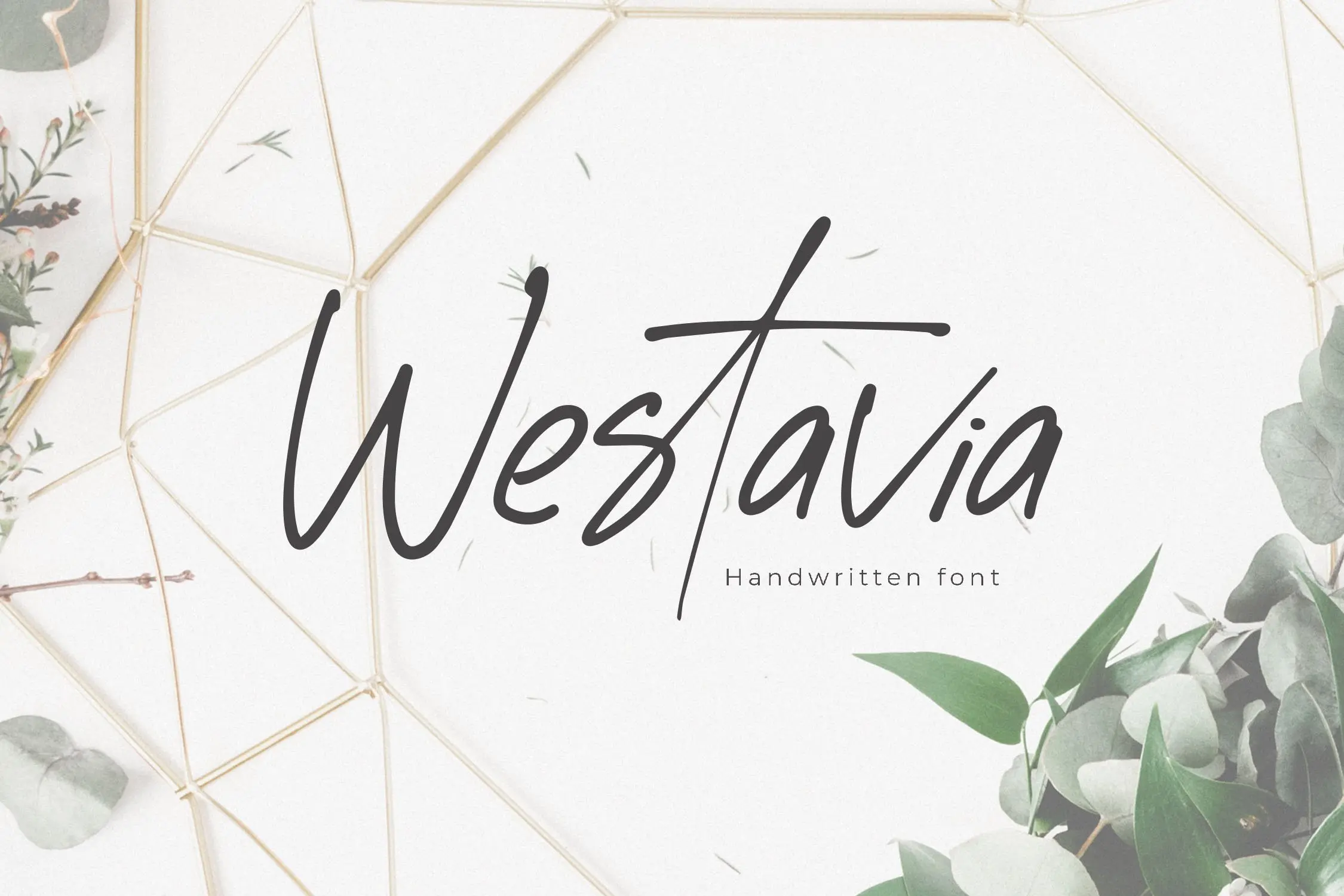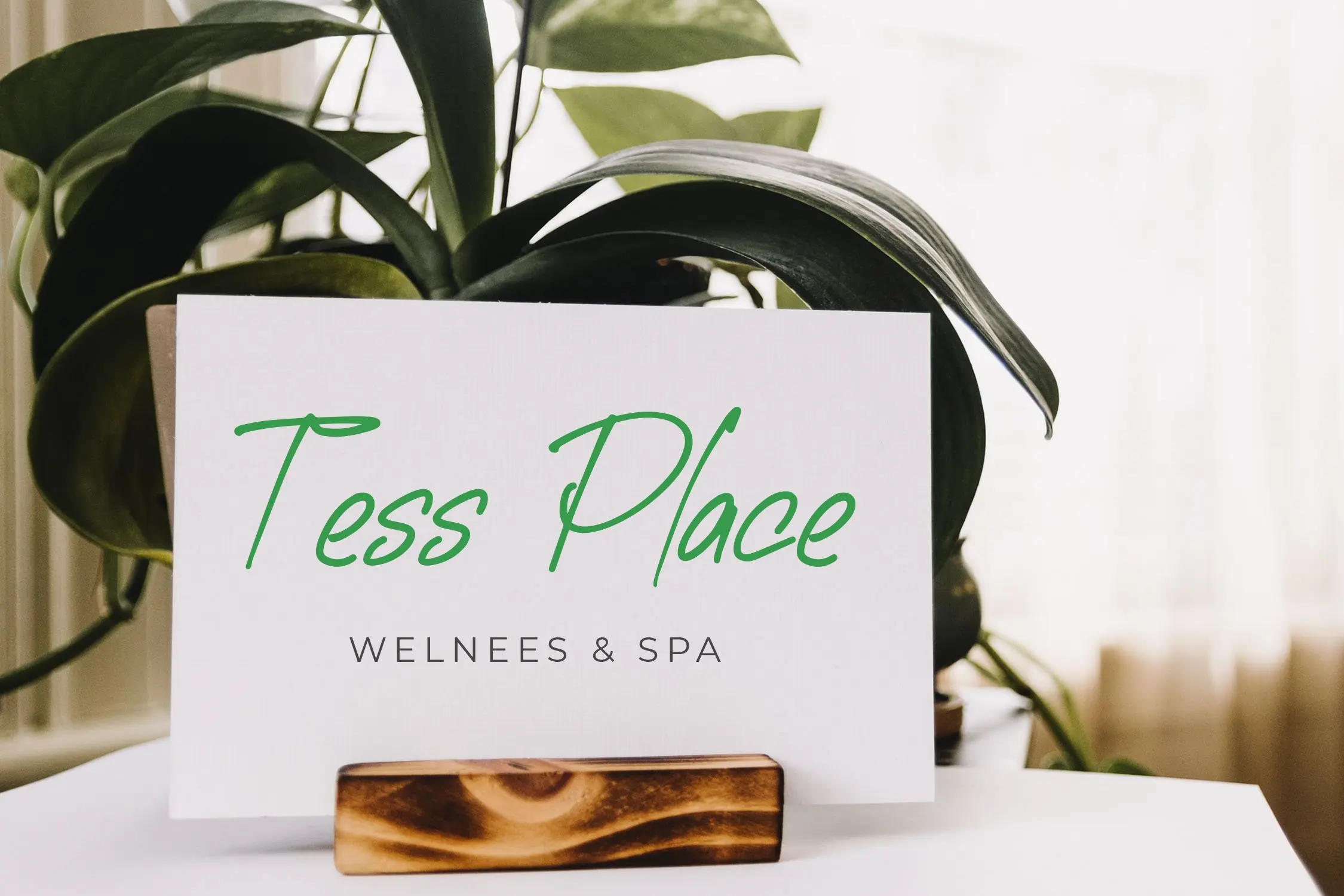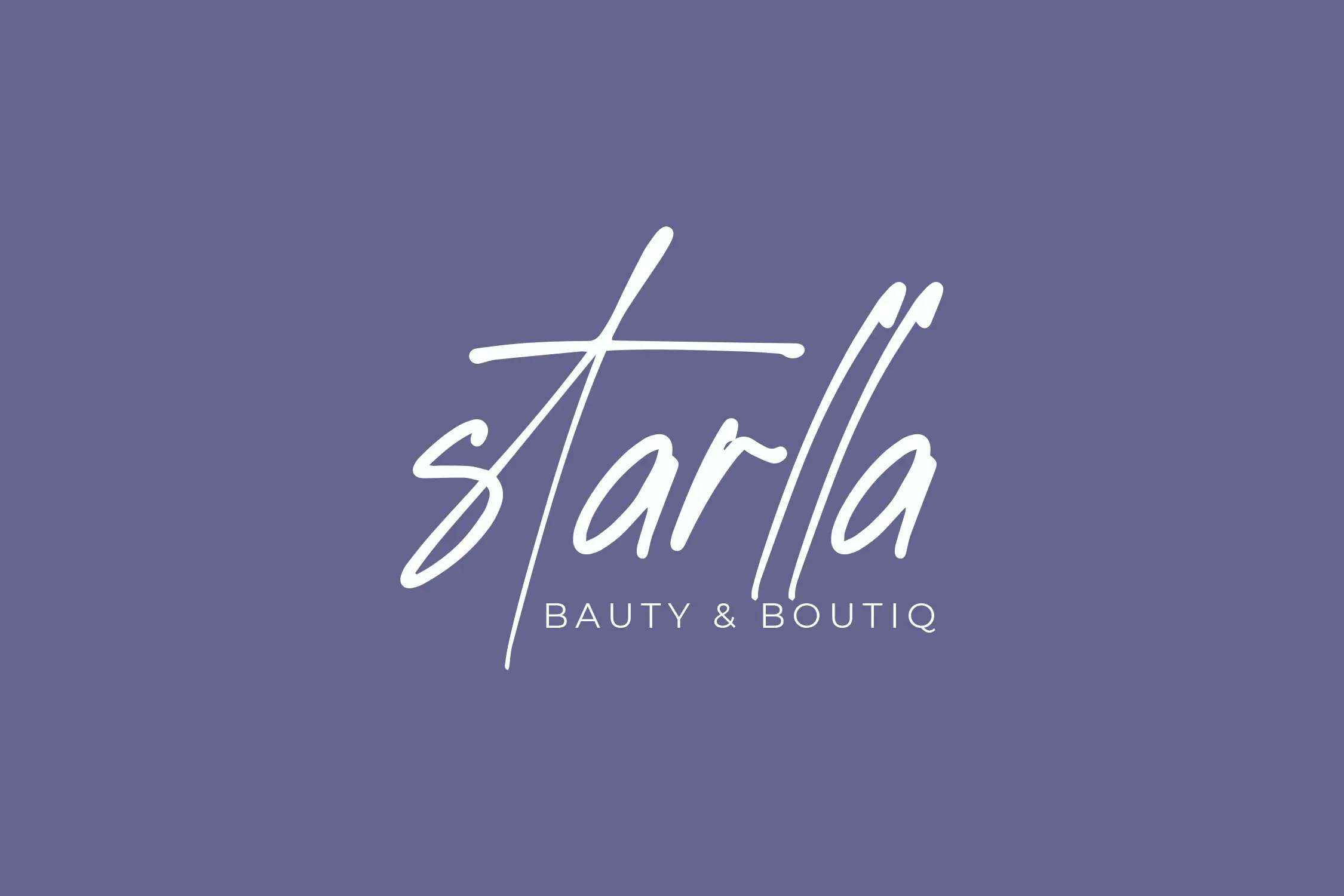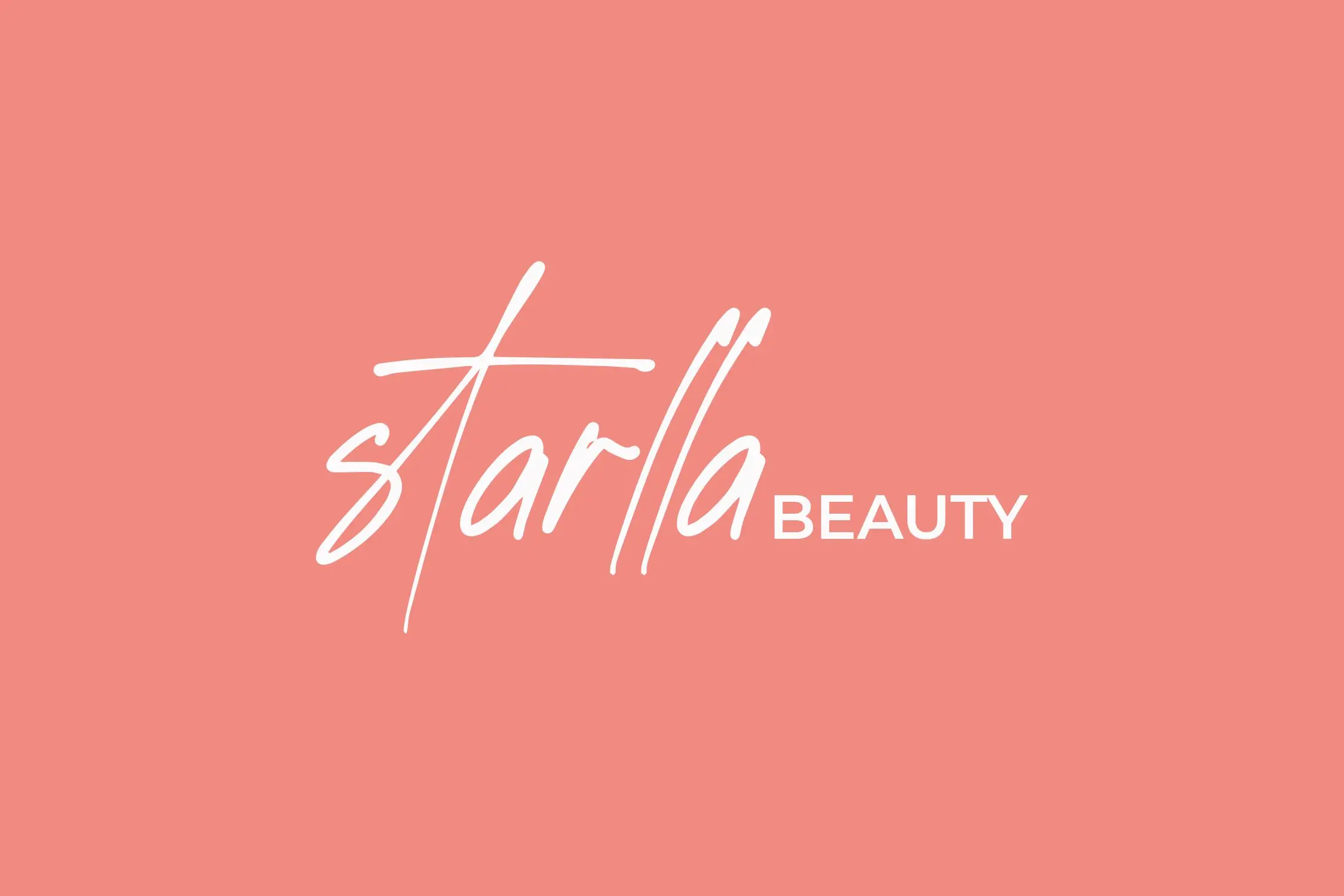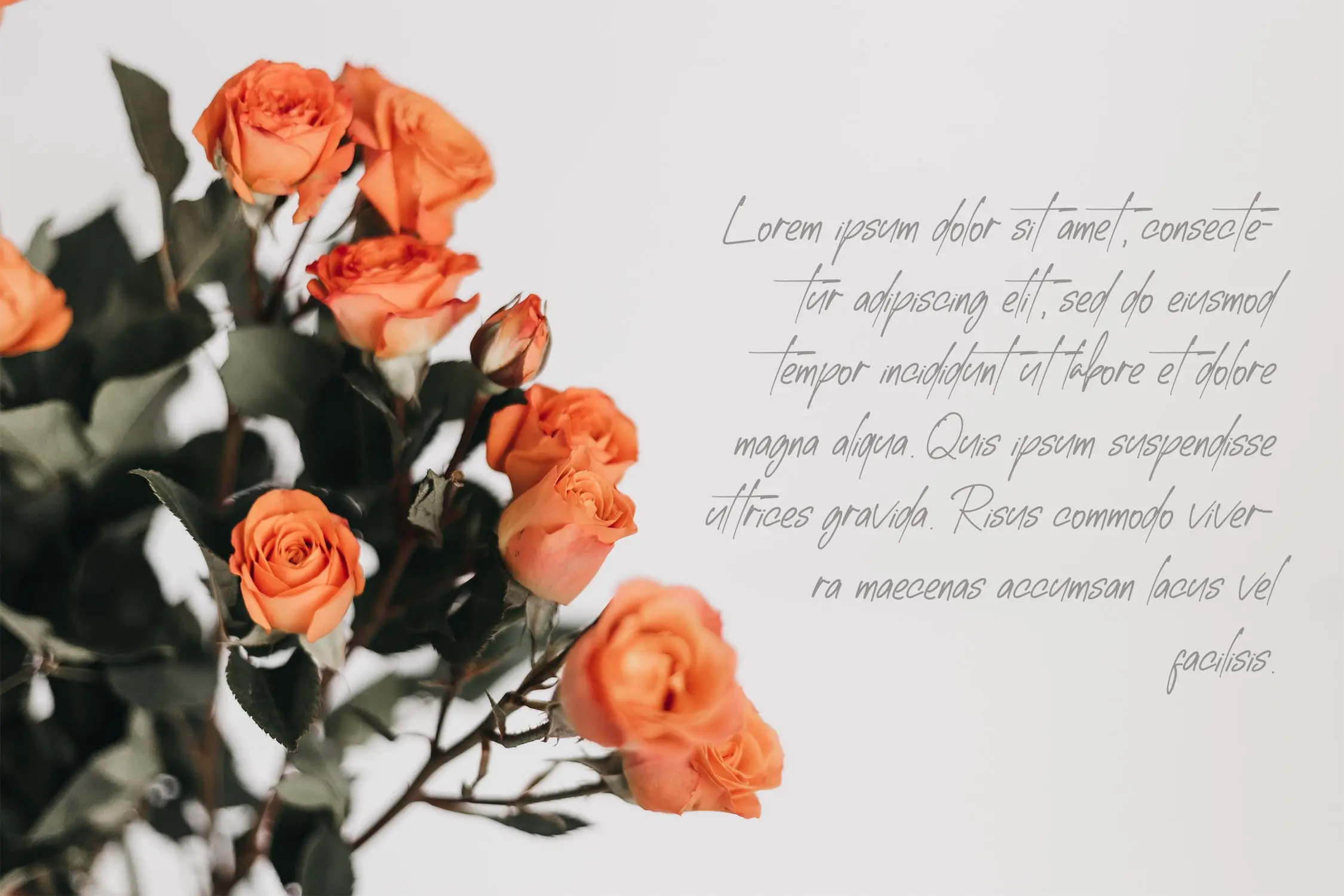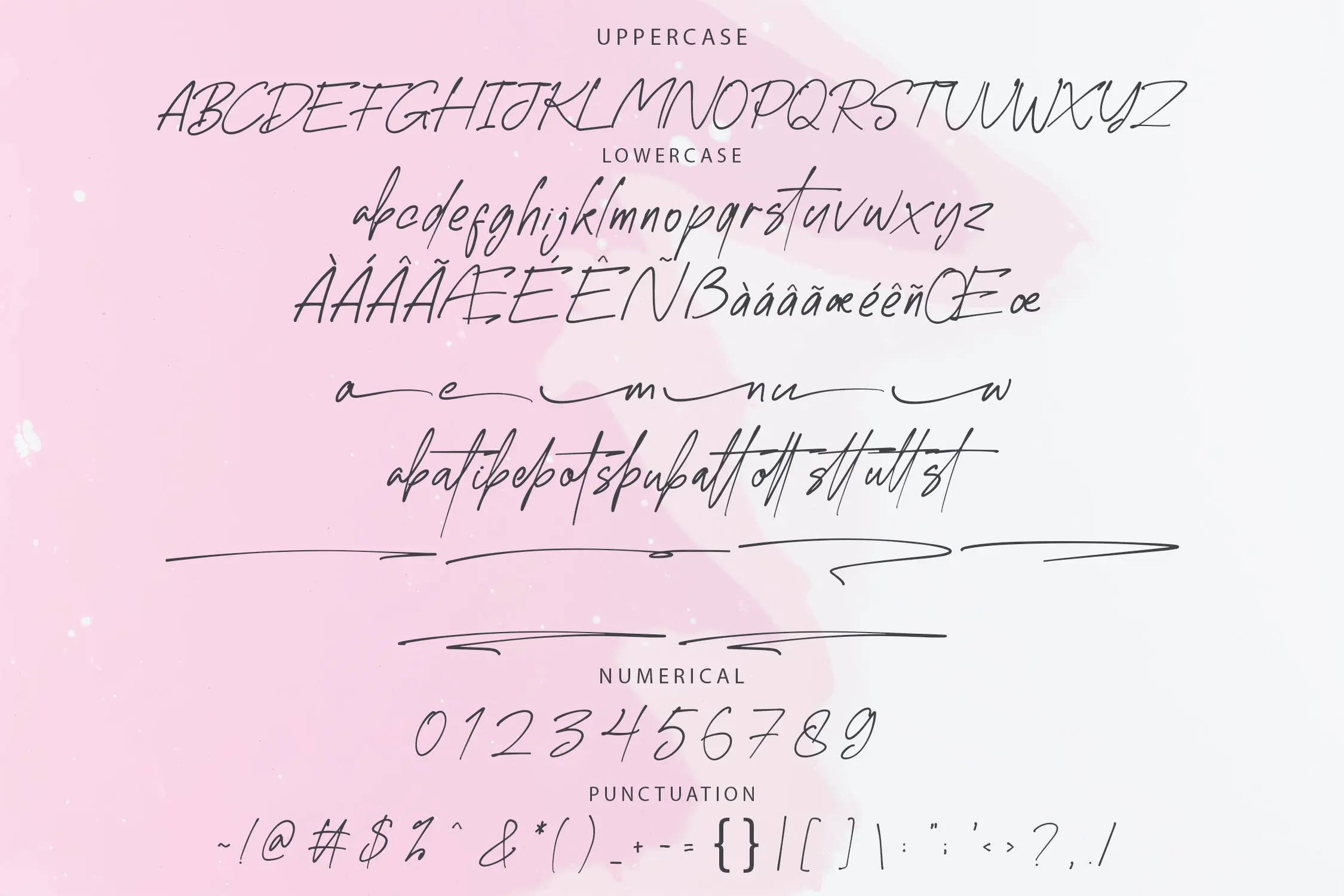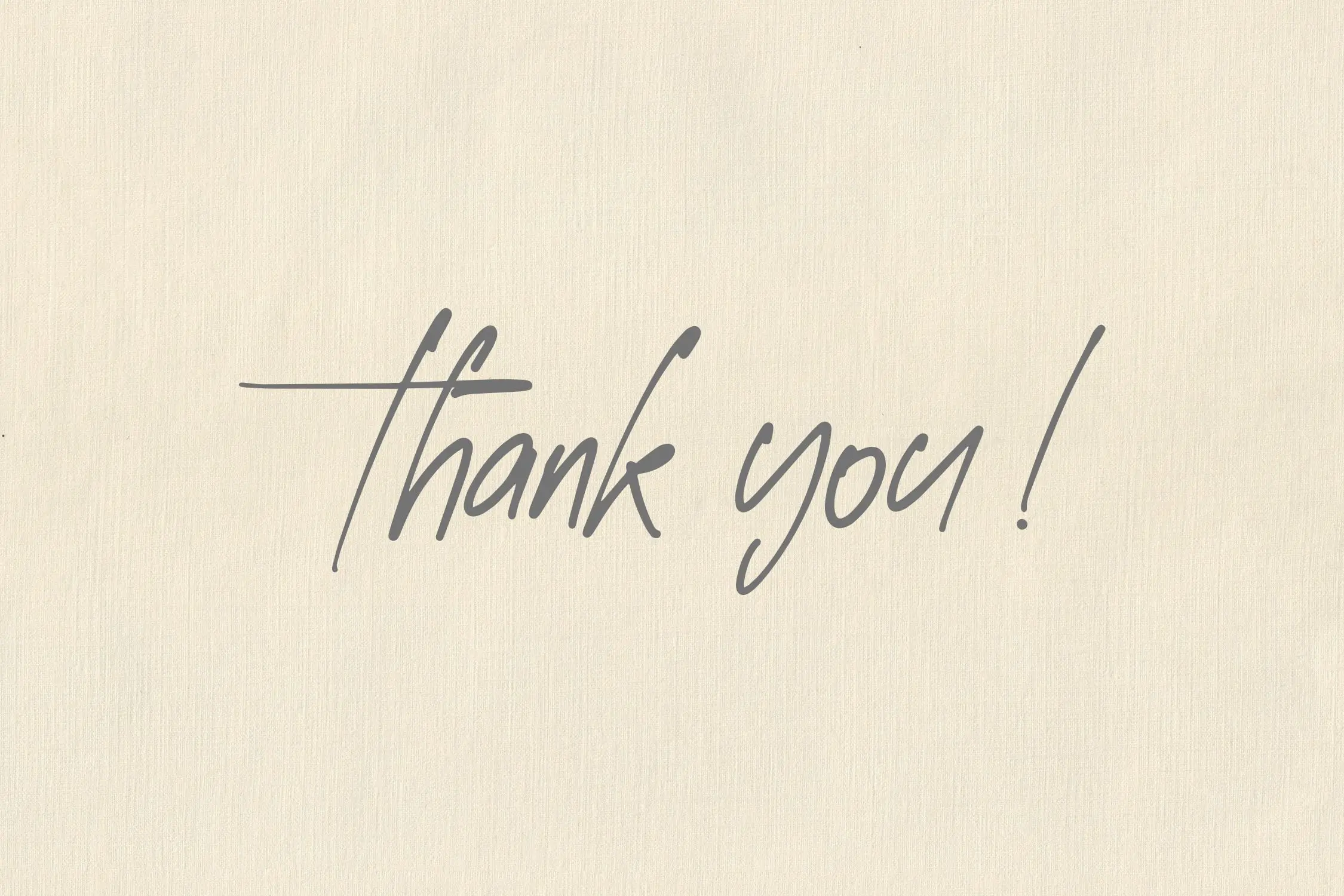
Introducing Westavia, an exquisite handwriting font that embodies elegance and sophistication. Crafted with unique character shapes, this font is designed to elevate the visual appeal of your projects, making them more captivating and memorable. Whether you’re working on invitations, branding, or any creative endeavor, Westavia is the perfect choice to add a touch of refinement.
- Ligatures
- Stylistic Alternates
- Swashes
- Multilingual Support